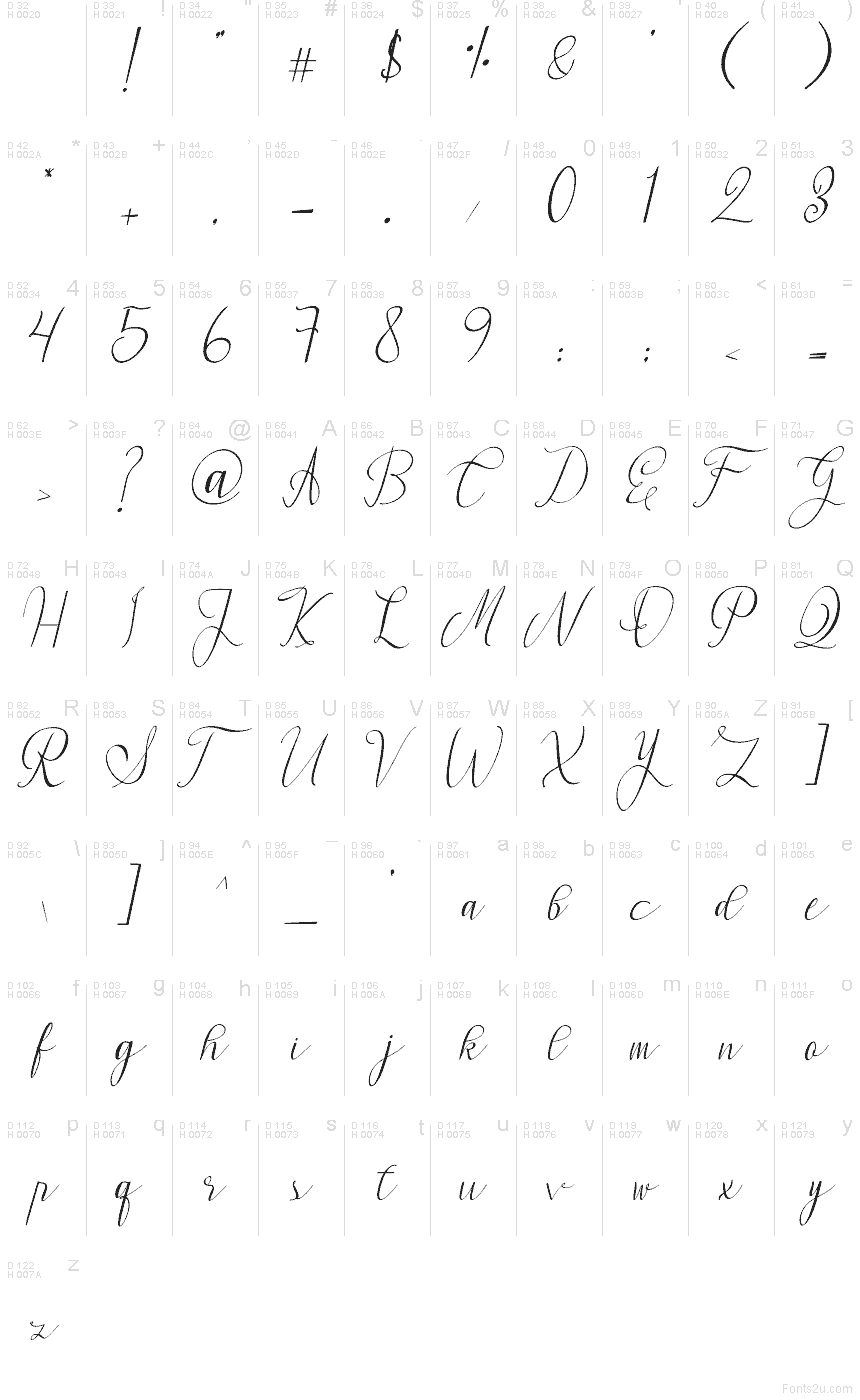
Montapallier Italic
Montapallier Italic font by Fikryal studio is a free calligraphy typeface that looks like it’s been written with a fine, inky pen on soft cotton paper. The letters are tall, elegantly slanted, and lightly textured, with airy spacing that lets every word breathe. It carries a refined, romantic feel-graceful enough for formal events, but still relaxed and human, like a carefully crafted signature.
Using Montapallier Italic, you can bring a poetic touch to wedding invitations, save-the-date cards, boutique branding, product packaging, social media quotes, and elegant logos. This free font shines when given room at larger sizes, where its long, sweeping strokes can really show off. Pair it with a clean sans serif from the Montapallier family or a simple geometric sans for body text to keep layouts balanced and readable.